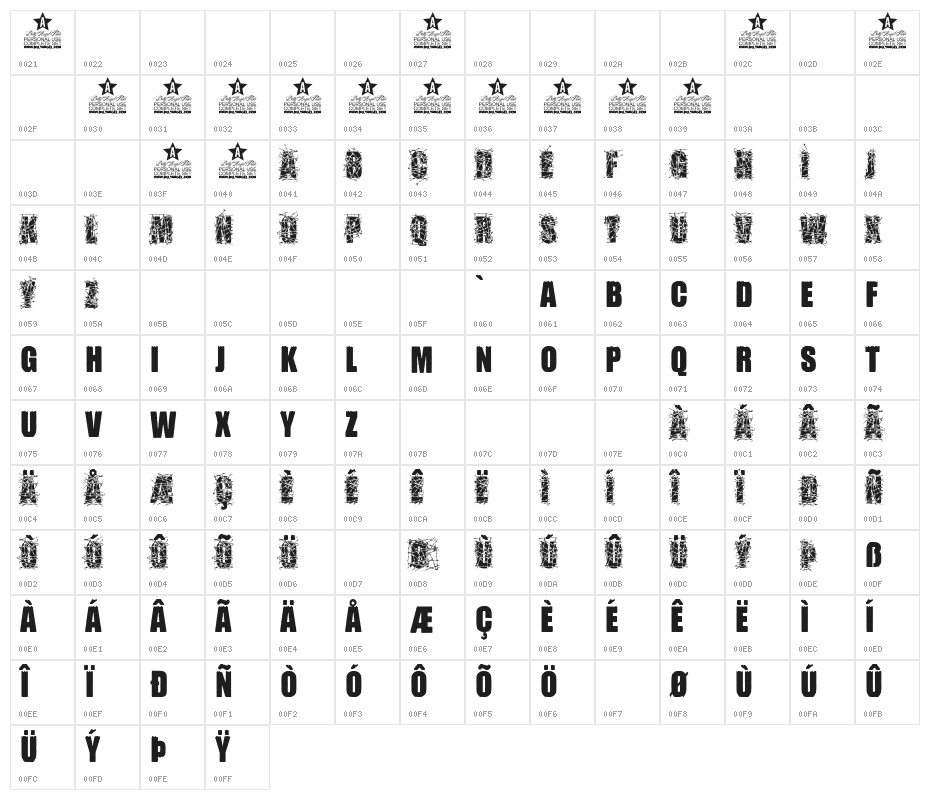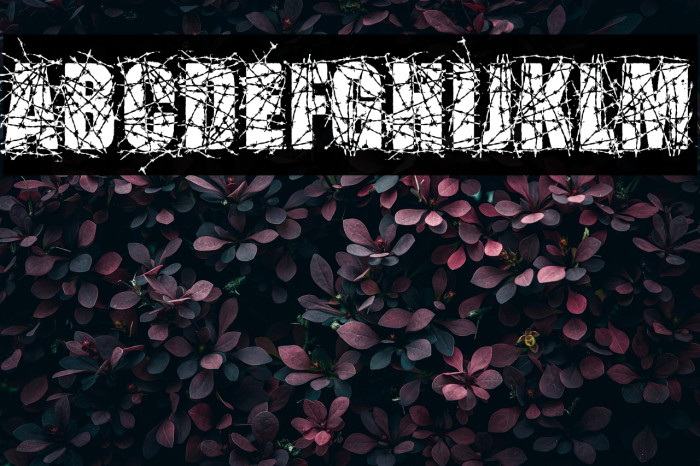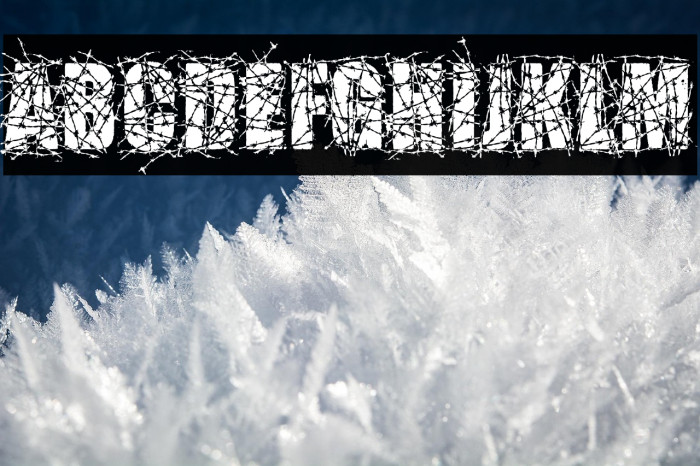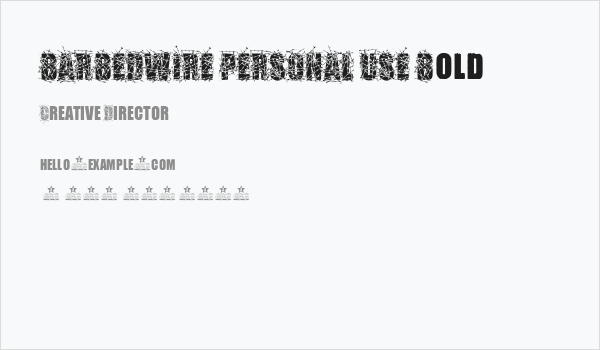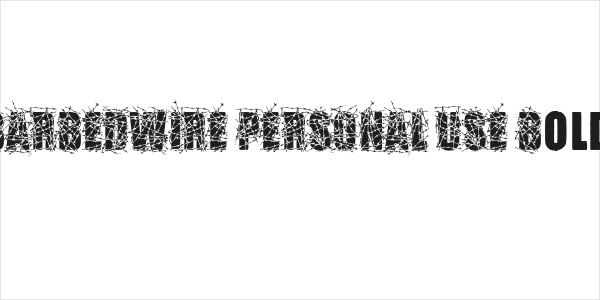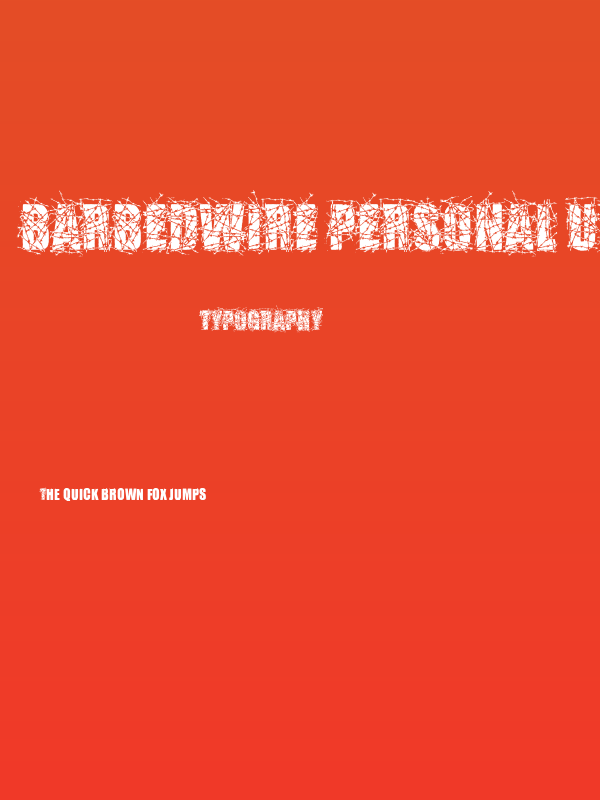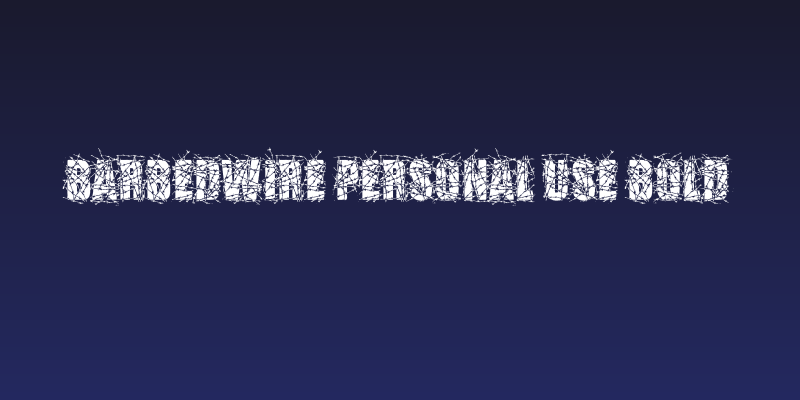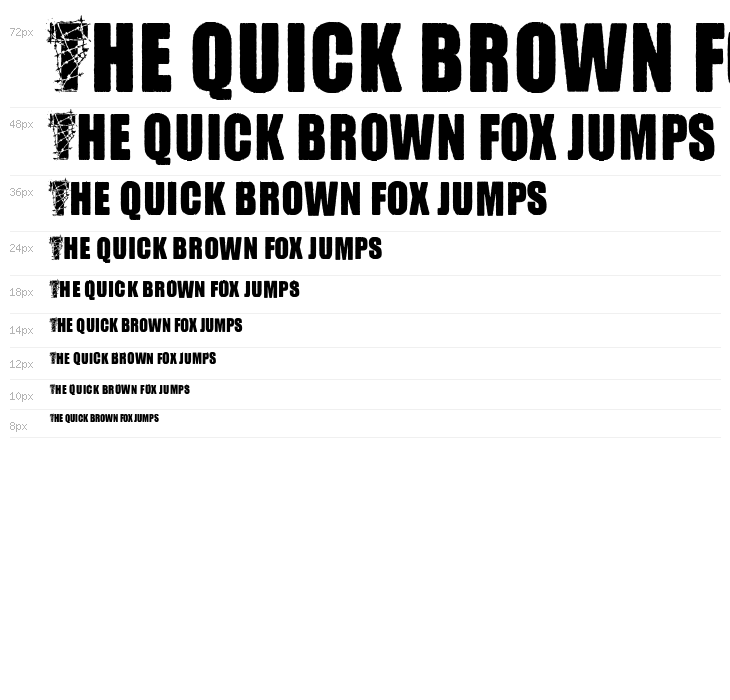
BARBEDWIRE PERSONAL USE Bold Font
BARBEDWIRE PERSONAL USE Bold Description
This font features a bold and striking design, with each character appearing as if it is constructed from barbed wire. The letters are uppercase and have a rugged, distressed look, adding a sense of edginess and toughness. The intricate detailing of the barbed wire effect gives the font a unique texture, making it stand out in any design. The boldness of the characters ensures high visibility and impact, suitable for attention-grabbing headlines or thematic designs. The overall style is decorative and highly thematic, perfect for projects that require a gritty or industrial aesthetic.
| Proposed Projects | Ideal for posters, album covers, event flyers, or any design needing a gritty, industrial theme. |